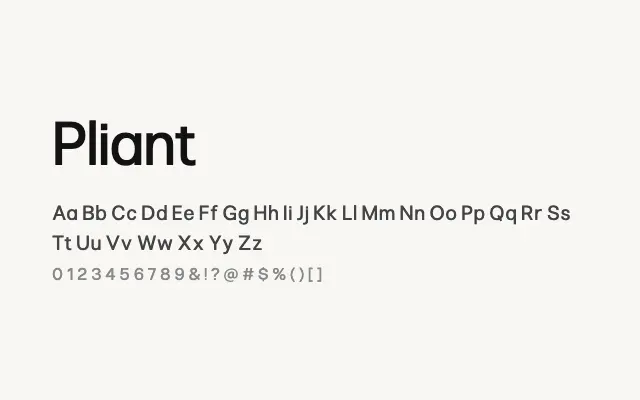
A wide-ranging geometric sans-serif with strong multilingual support across Latin, Cyrillic, and Greek scripts.
Pliant's generous weight range and broad script coverage make it a practical choice for international branding and digital publishing projects requiring consistent typographic voice across multiple writing systems. Its geometric underpinnings give it a contemporary, neutral character suitable for UI and editorial work. The family performs especially well at headline and display sizes where its structural clarity reads with authority.
Pliant is a multi-script geometric sans-serif with a notably wide weight range from Thin to Black, covering Cyrillic, Cyrillic Extended, and Greek alongside Latin. Its letterforms show clean geometric construction with modest optical corrections for legibility.